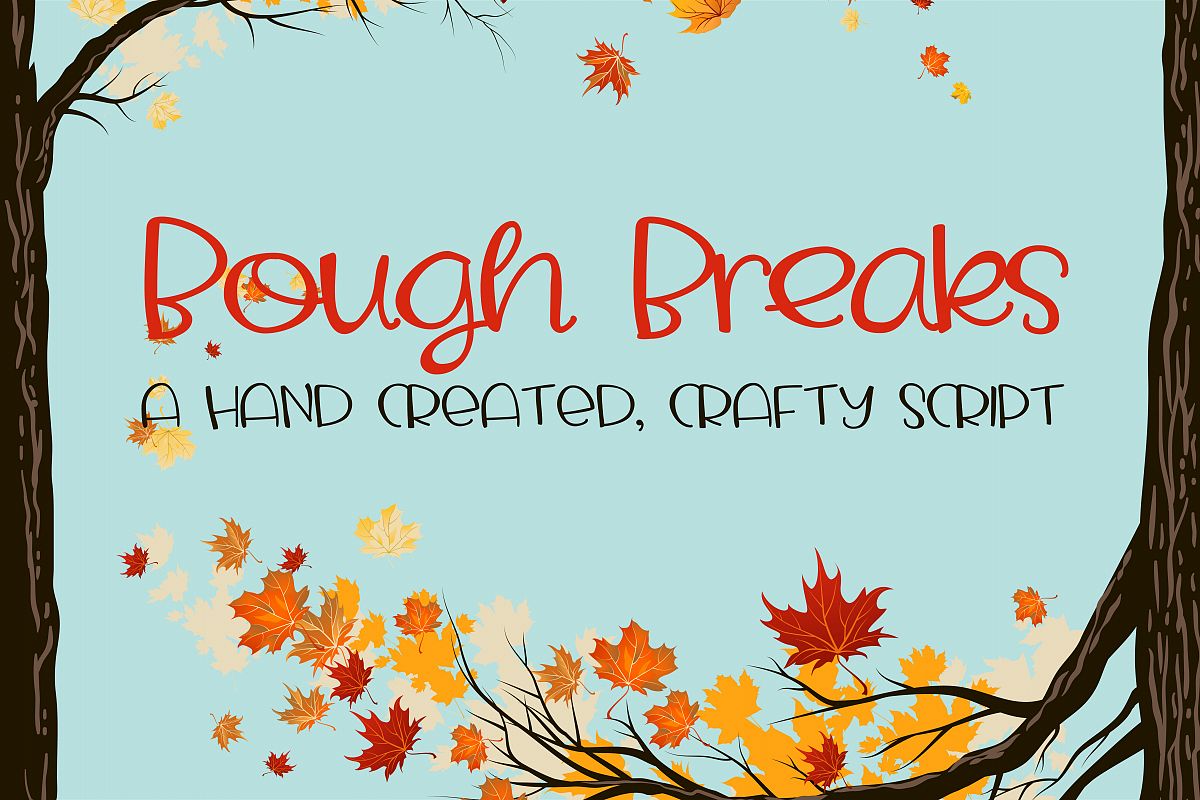
PN Bough Breaks
This hand crafted script font has a printed uppercase and scripty lowercase. It adds a youthful and fun appearance to any project
Printed Uppercase
Scripted Lowercase